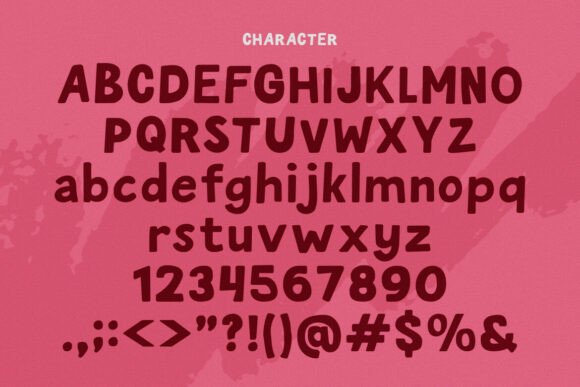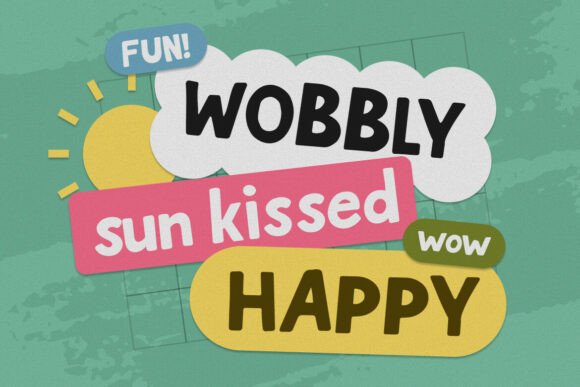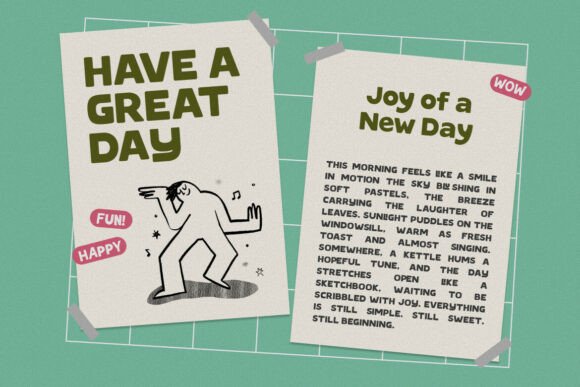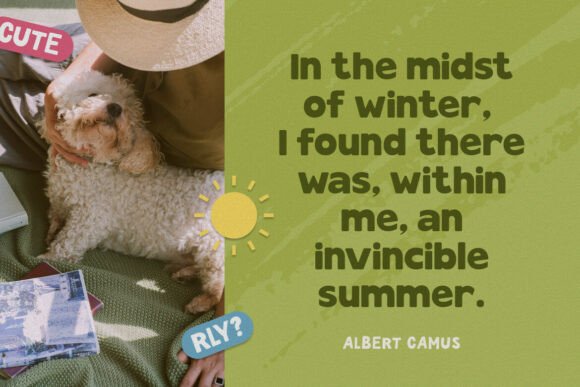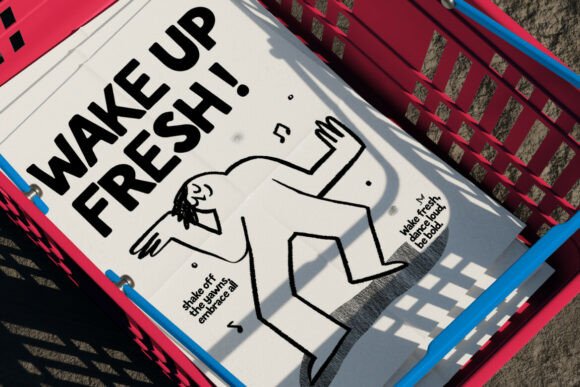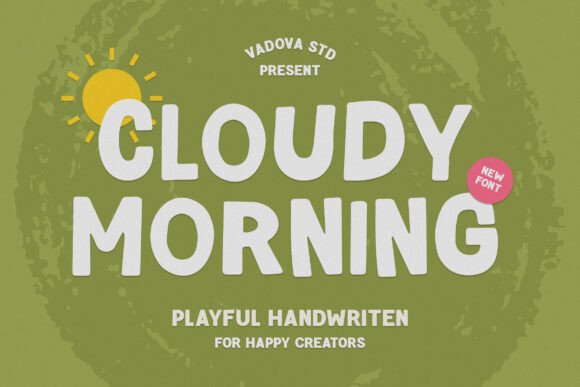
Introducing Cloudy Morning Font: A Playful Handwritten Delight
Are you tired of using the same old fonts in your designs? Do you want to add a touch of warmth and personality to your creations? Look no further than the Cloudy Morning Font, a playful handwritten font designed to bring joy and positivity to your designs. In this article, we’ll dive into the features and benefits of this delightful font, and explore how it can elevate your designs to the next level.
What is Cloudy Morning Font?
Cloudy Morning Font is a playful handwritten font that is sure to capture the hearts of designers and crafters alike. Created with the intention of bringing happiness and warmth to designs, this font boasts rounded strokes, a bouncy baseline, and a casual lettering style that exudes a sense of fun and friendliness. Whether you’re working on a packaging design, a social media post, or a feel-good advertising campaign, Cloudy Morning Font is the perfect choice.
Key Features of Cloudy Morning Font
• Rounded Strokes: The font features rounded strokes that give it a soft and approachable feel, perfect for designs that require a touch of warmth and personality.
• Bouncy Baseline: The bouncy baseline of Cloudy Morning Font adds a playful touch to your designs, making them more engaging and fun to look at.
• Casual Lettering Style: The font’s casual lettering style makes it perfect for designs that require a personal touch, such as food brands, kids merchandise, and inspirational quotes.
Cloudy Morning Font is an incredibly versatile font that can be used in a wide range of design projects. Here are some ideas to get you started:
• Fun Packaging: Add a playful touch to your product packaging with Cloudy Morning Font, perfect for food brands, cosmetics, and other consumer goods.
• Kids Merchandise: The font’s playful and fun style makes it perfect for kids merchandise, such as toys, clothing, and educational materials.
• Inspirational Quotes: Use Cloudy Morning Font to add a touch of warmth and personality to your inspirational quotes, making them more engaging and shareable.
• Social Media Posts: The font’s casual and friendly style makes it perfect for social media posts, adding a personal touch to your online content.
• Feel-Good Advertising: Cloudy Morning Font is ideal for feel-good advertising campaigns that aim to evoke emotions and create a positive connection with your audience.
Why Choose Cloudy Morning Font?
So why choose Cloudy Morning Font over other fonts? Here are just a few reasons:
• Authenticity: Cloudy Morning Font is designed to bring authenticity and personality to your designs, making them more relatable and engaging.
• Happiness and Positivity: The font’s playful and fun style is sure to evoke feelings of happiness and positivity, making it perfect for designs that aim to uplift and inspire.
• Easy to Read: Despite its playful style, Cloudy Morning Font is incredibly easy to read, making it perfect for designs that require a clear and concise message.
In conclusion, Cloudy Morning Font is a playful handwritten font that is sure to bring joy, warmth, and personality to your designs. With its rounded strokes, bouncy baseline, and casual lettering style, it’s perfect for a wide range of design projects, from fun packaging to inspirational quotes. Whether you’re a designer or crafter, Cloudy Morning Font is an excellent choice for anyone looking to add a touch of authenticity and happiness to their creations.